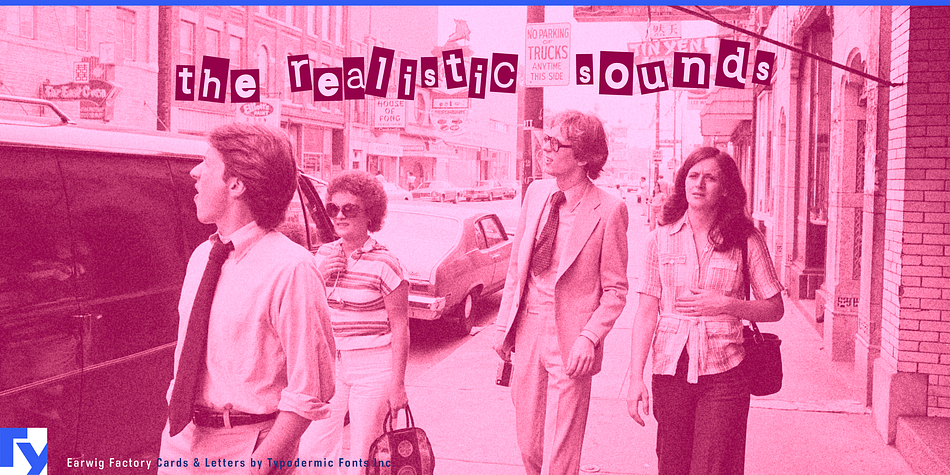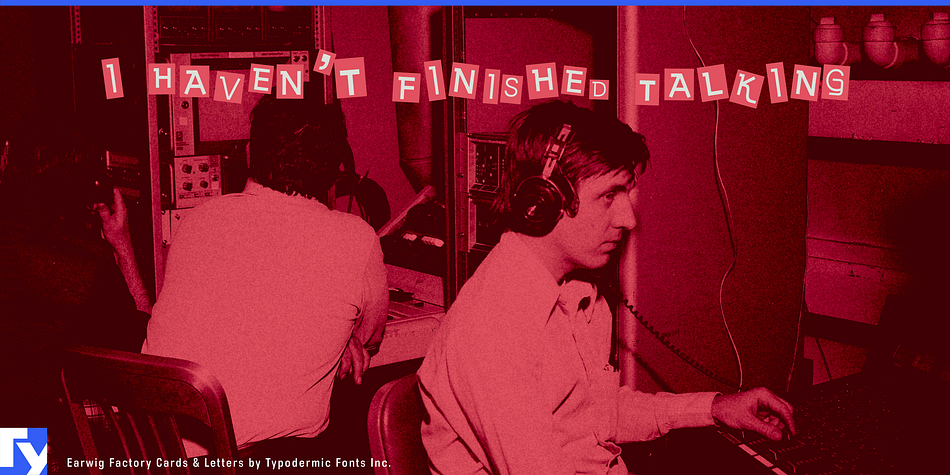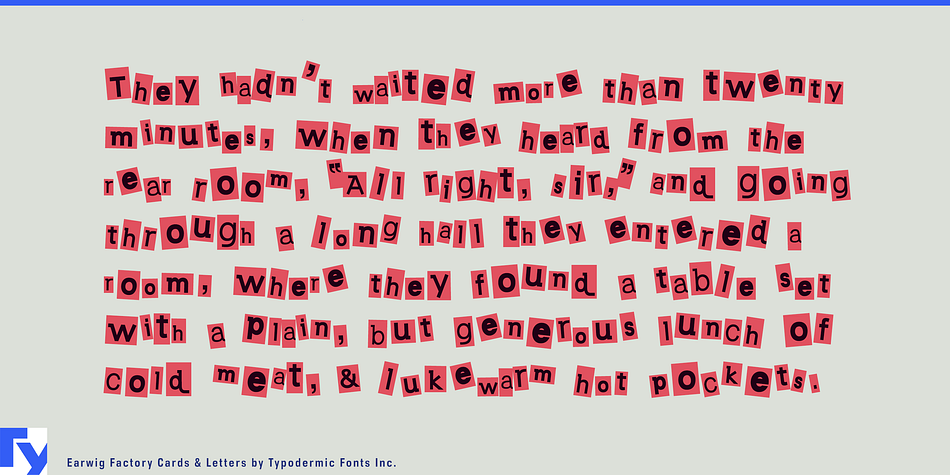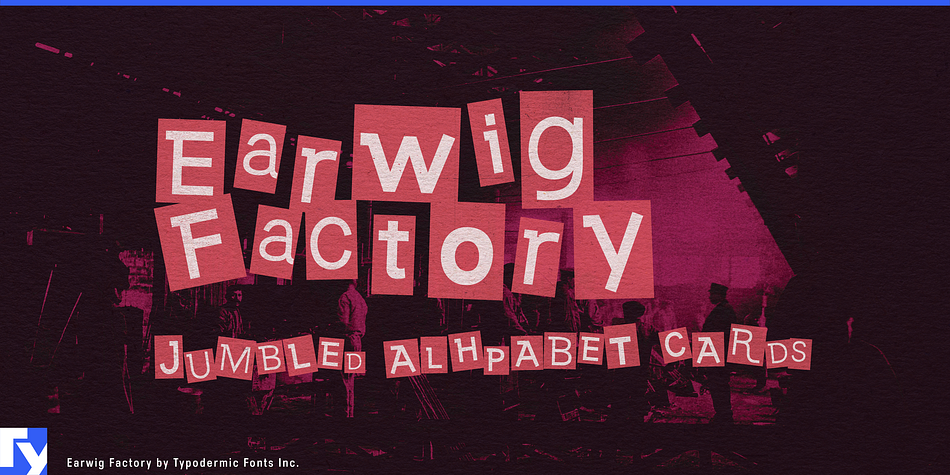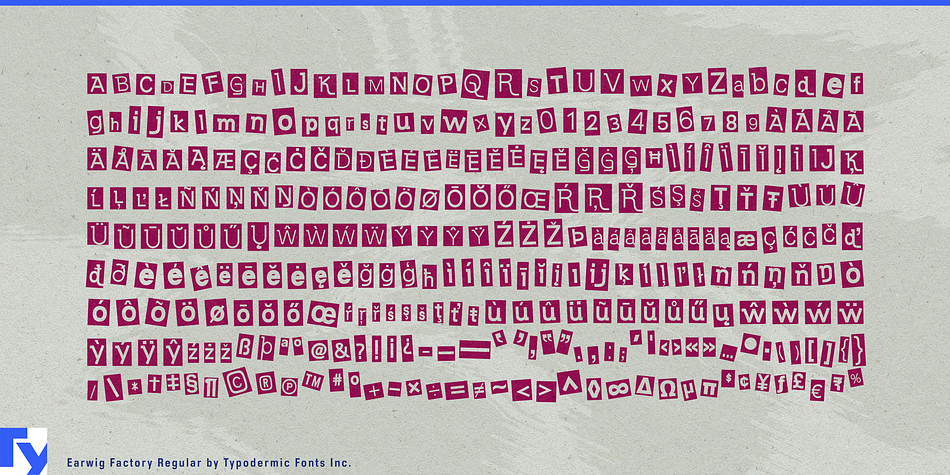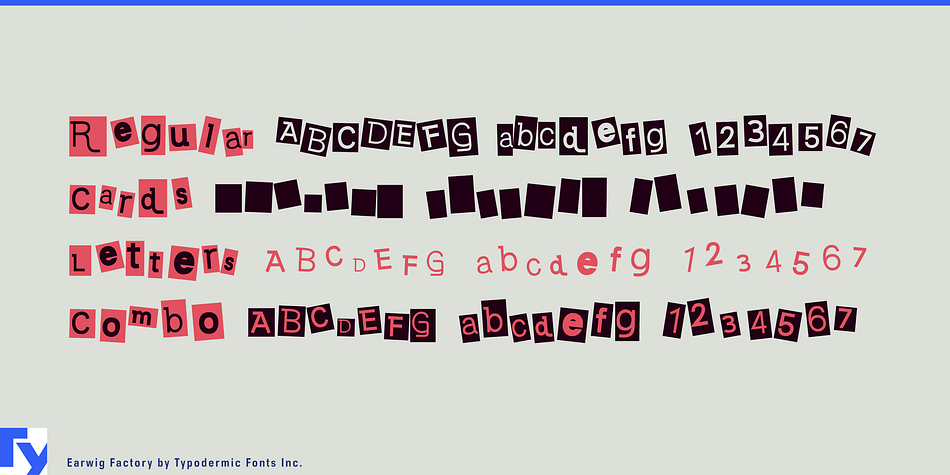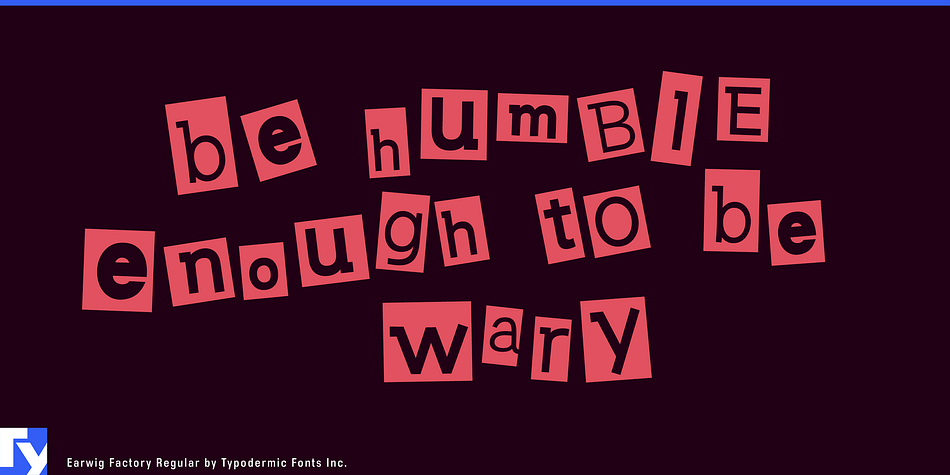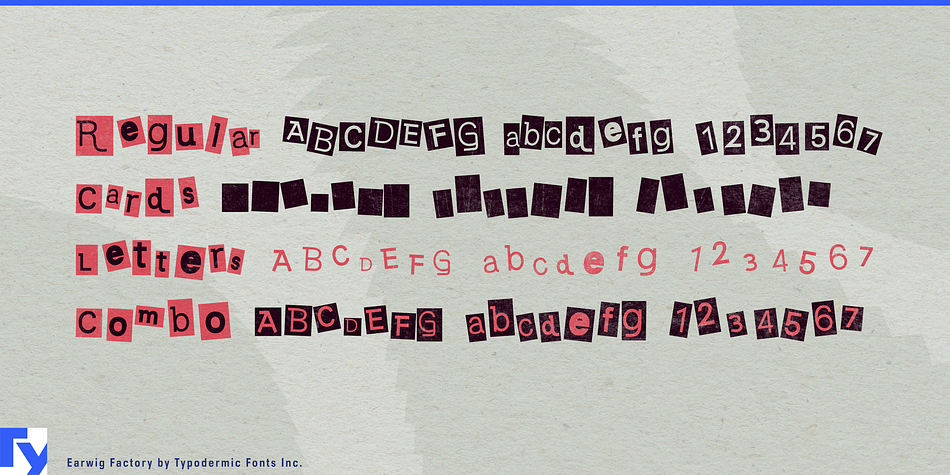
Earwig Factory is a dingbat, novelty and kids font family. This typeface has three styles and was published by Typodermic Fonts Inc.
Earwig Factory is a scattering of jumbled cut-outs. For a more realistic feel, letters and numerals in OpenType-savvy programs are pseudorandomized. Color/texture layers can be created using the “letters” and “cards” styles. An additional “cards” layer can be offset to create a drop shadow effect. Most Latin-based European writing systems are supported, including the following languages. Afaan Oromo, Afar, Afrikaans, Albanian, Alsatian, Aromanian, Aymara, Bashkir (Latin), Basque, Belarusian (Latin), Bemba, Bikol, Bosnian, Breton, Cape Verdean, Creole, Catalan, Cebuano, Chamorro, Chavacano, Chichewa, Crimean Tatar (Latin), Croatian, Czech, Danish, Dawan, Dholuo, Dutch, English, Estonian, Faroese, Fijian, Filipino, Finnish, French, Frisian, Friulian, Gagauz (Latin), Galician, Ganda, Genoese, German, Greenlandic, Guadeloupean Creole, Haitian Creole, Hawaiian, Hiligaynon, Hungarian, Icelandic, Ilocano, Indonesian, Irish, Italian, Jamaican, Kaqchikel, Karakalpak (Latin), Kashubian, Kikongo, Kinyarwanda, Kirundi, Kurdish (Latin), Latvian, Lithuanian, Lombard, Low Saxon, Luxembourgish, Maasai, Makhuwa, Malay, Maltese, Māori, Moldovan, Montenegrin, Ndebele, Neapolitan, Norwegian, Novial, Occitan, Ossetian (Latin), Papiamento, Piedmontese, Polish, Portuguese, Quechua, Rarotongan, Romanian, Romansh, Sami, Sango, Saramaccan, Sardinian, Scottish Gaelic, Serbian (Latin), Shona, Sicilian, Silesian, Slovak, Slovenian, Somali, Sorbian, Sotho, Spanish, Swahili, Swazi, Swedish, Tagalog, Tahitian, Tetum, Tongan, Tshiluba, Tsonga, Tswana, Tumbuka, Turkish, Turkmen (Latin), Tuvaluan, Uzbek (Latin), Venetian, Vepsian, Võro, Walloon, Waray-Waray, Wayuu, Welsh, Wolof, Xhosa, Yapese, Zapotec Zulu and Zuni.